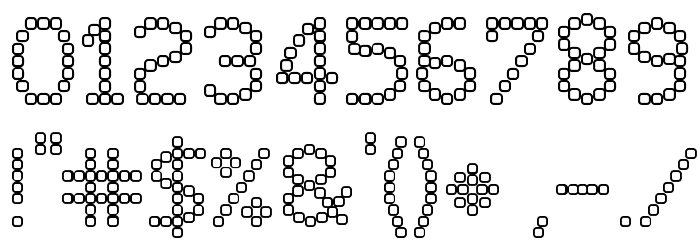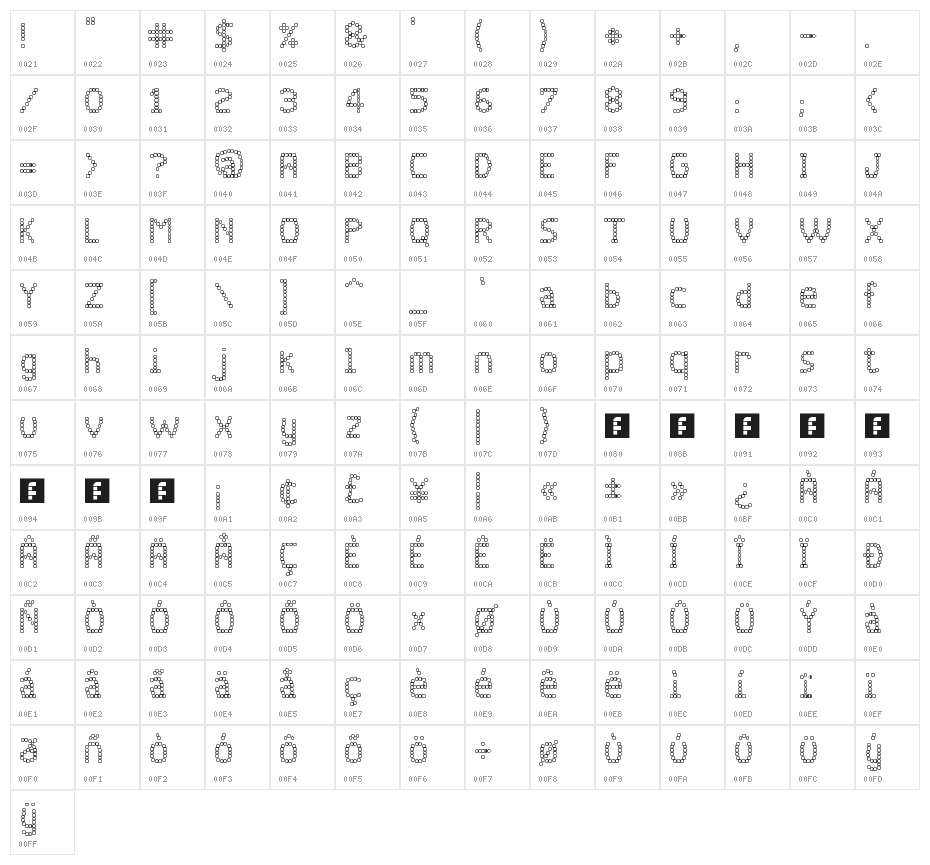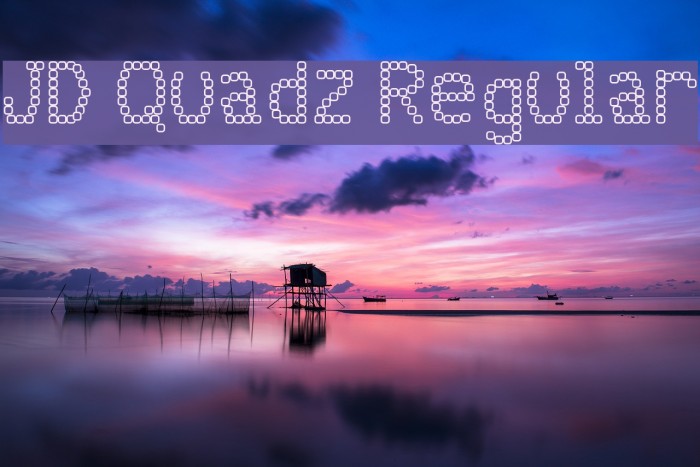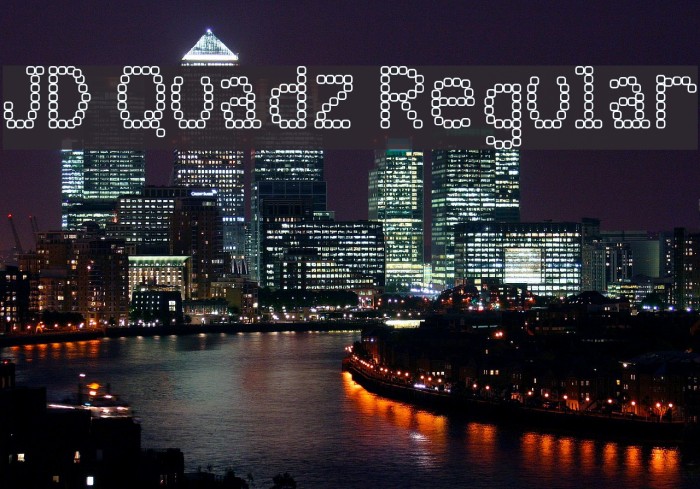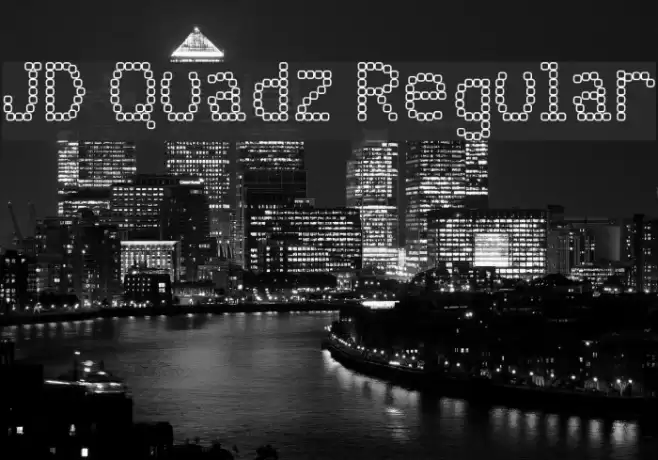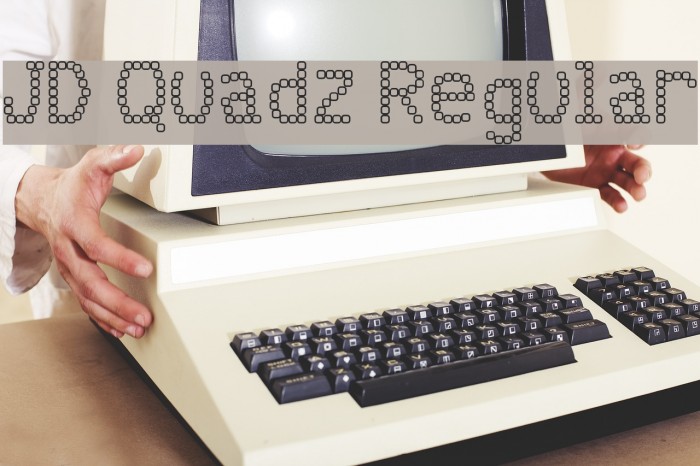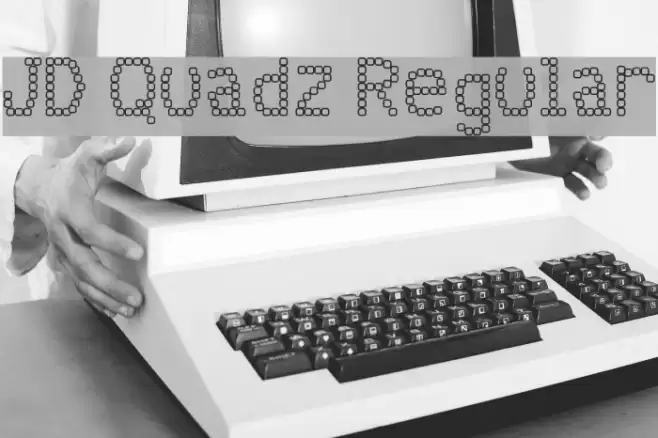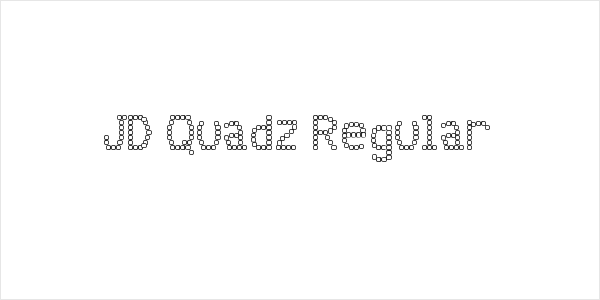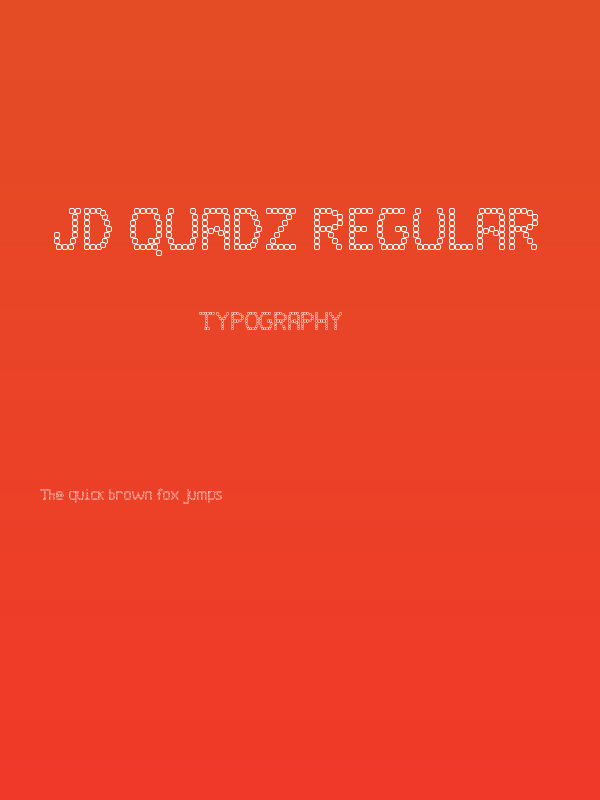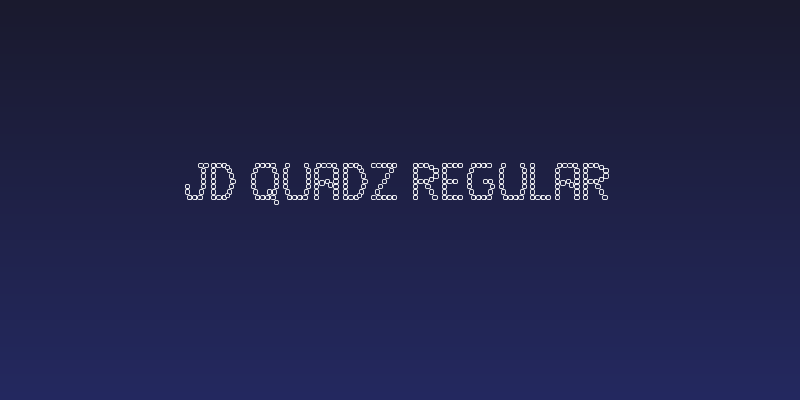
JD Quadz Regular Font
JD Quadz Regular Description
This font features a unique design where each character is constructed from a series of small, interconnected squares, giving it a pixelated and digital appearance. The geometric structure provides a modern and futuristic feel, making it stand out in any design. The characters are evenly spaced, and the uniformity of the squares creates a consistent visual rhythm. This font is particularly suitable for projects that require a tech-savvy or retro digital aesthetic. The uppercase and lowercase letters, as well as numbers and special characters, maintain this distinctive style, ensuring versatility across various applications.
| Use Case | Logos, Headlines, Digital displays |
| Proposed Projects | Ideal for digital art, tech-themed posters, video game graphics, and futuristic branding. |